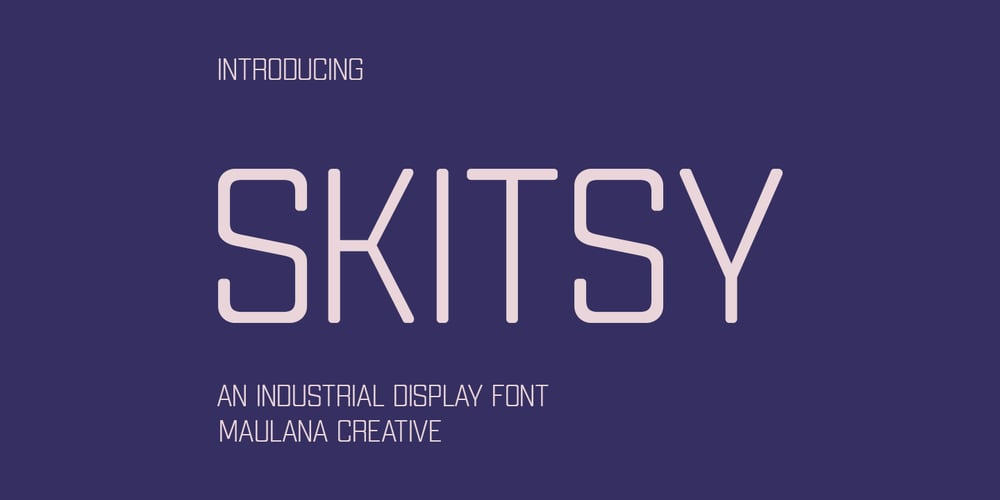
MC Skitsy Font Family was designed by Gilang Maulana and published by Maulana Creative. MC Skitsy contains 1 styles and family package options. Skitsy is an industrial tech genre sans display font. With regular stroke, fun character with a bit of ligatures and alternates. To give you an extra creative work. Skitsy font support multilingual more than 100+ language. This font is good for logo design, Social media, Movie Titles, Books Titles, a short text even a long text letter and good for your secondary text font with script or serif. Make a stunning work with Skitsy font. Cheers, Maulana Creative